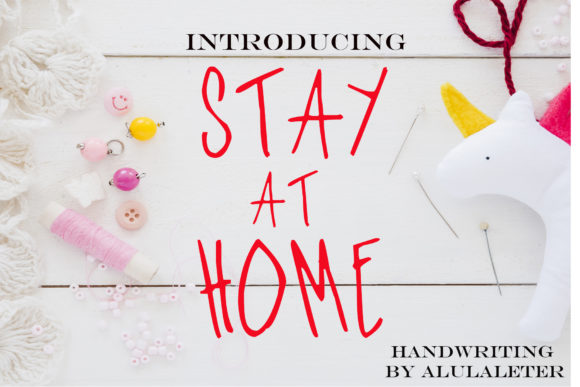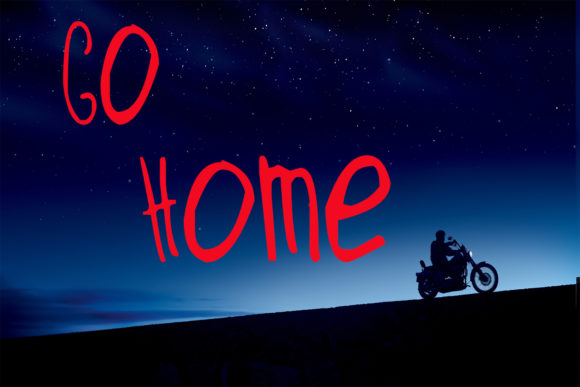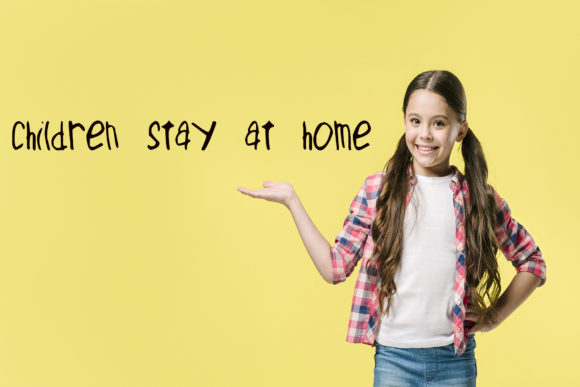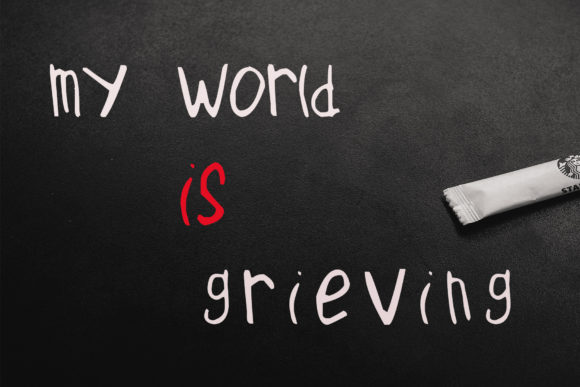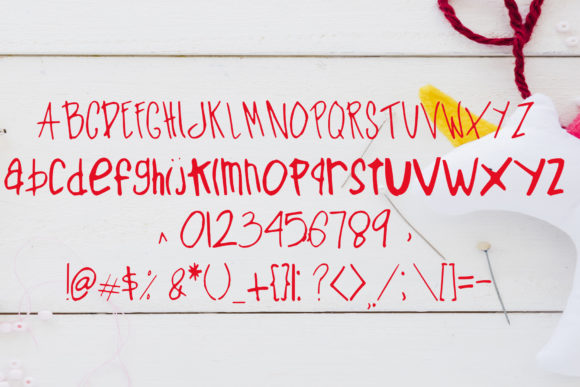
Stay at Home Font
About Stay at Home Font
Stay at Home embodies fun, quirkiness and authenticity. This handwritten font will appeal to a wide range of crafty ideas, from letterheads and titles to stationery.